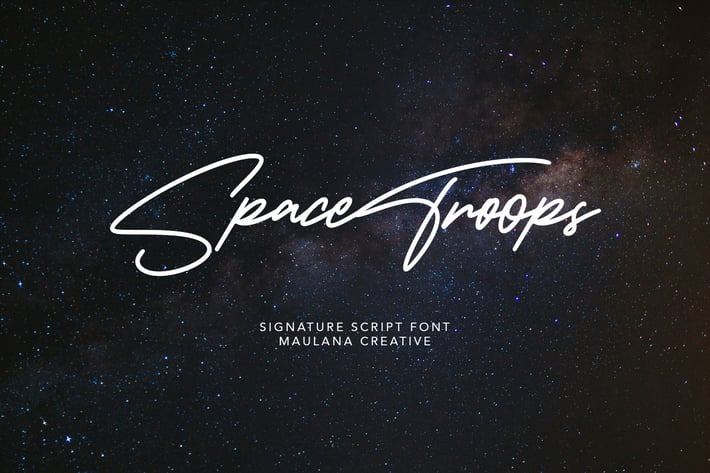
Spacetroops Signature Font
Give your designs an authentic brush handcrafted feel. Spacetroops is perfectly suited to signature, stationery, logo, typography quotes, magazine or book cover, website header, flyer, clothing, branding, packaging design and more.